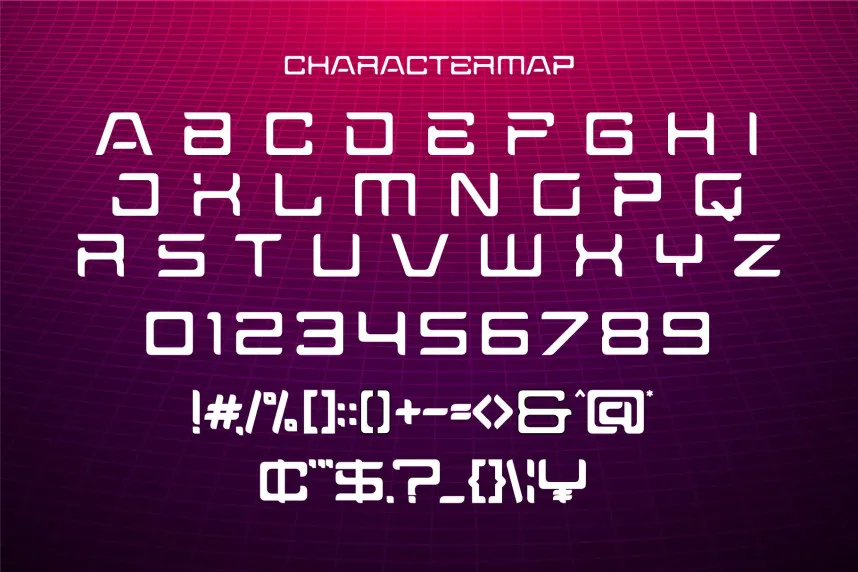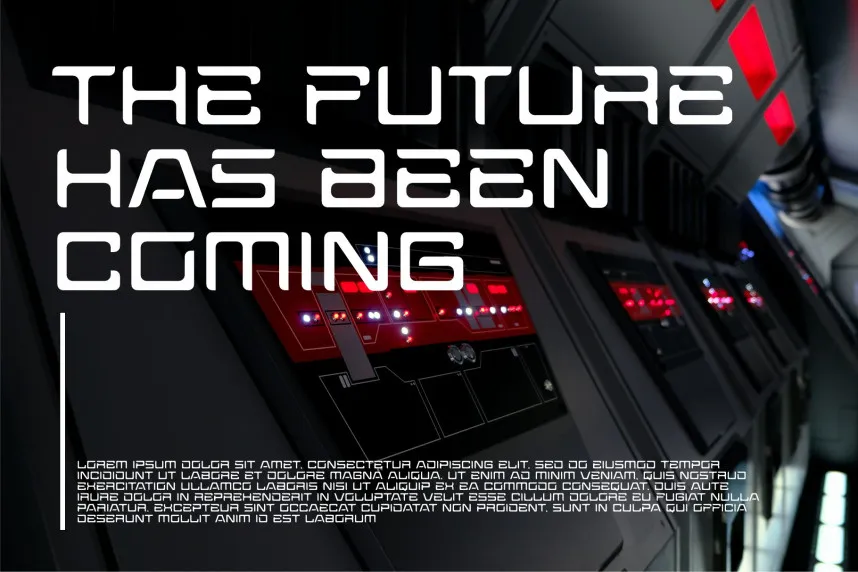
Fogarde Tech Display Font is made for the modern age. With sharp edges and bold lines, it gives designs a futuristic and professional look. Its design reflects speed, technology, and innovation.
This font is perfect for industries connected to technology, software, or gaming. It has a confident appearance that makes projects feel powerful and advanced. Its clarity makes it effective for bold headlines and branding.
Fogarde stands out because of its ability to mix style with function. It is not just eye-catching, it is also easy to read. This balance makes it excellent for both digital use and printed material.
Posters, advertisements, and website titles all benefit from the futuristic style of Fogarde. It immediately grabs attention and sets the tone for a modern and forward-thinking design.
Fogarde Tech Display Font Family
The geometric shapes of the letters make it reliable for projects that need structure and sharpness. It reflects progress and makes any design look updated and current.
Type Techno Display
Usage Best for gaming, software branding, and futuristic posters
Fogarde is not only a display font but also a statement of innovation. It communicates boldness and creativity, making it a great tool for designers who want to express a modern vision.